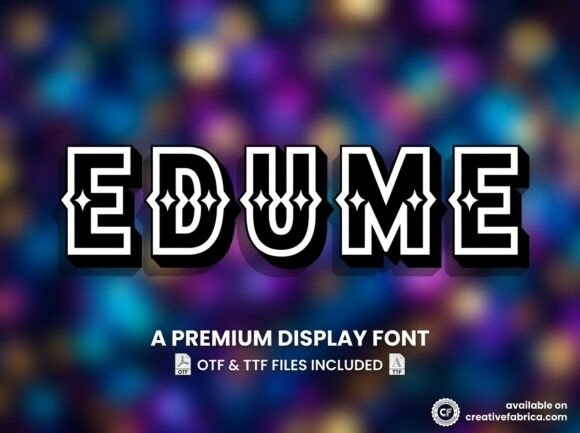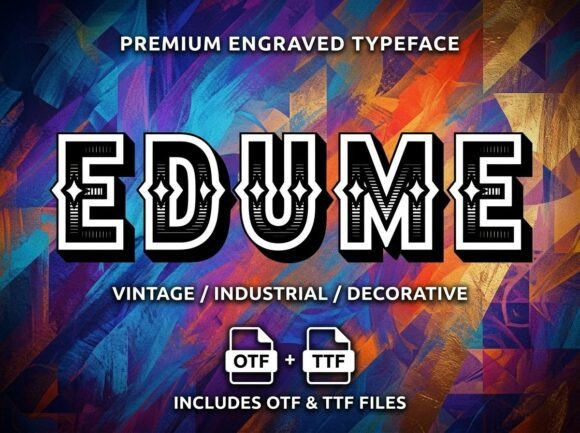
Introducing Edume Font: A Stunning Decorative Display Font
Are you tired of using the same old fonts for your creative projects? Look no further than Edume Font, a unique and artistic display font that’s sure to turn heads. Designed to be the center of attention, Edume Font features a strong visual personality and distinctive artistic elements that will help you break away from the ordinary.
What Makes Edume Font Special?
Edume Font is a versatile decorative display font that’s perfect for a variety of creative applications, including bold headlines, artistic logos, and creative packaging. With its professional and polished finish, this font is ideal for designers and crafters who want to add a touch of elegance and sophistication to their work.
⚠️ IMPORTANT NOTE BEFORE PURCHASE: Edume Font is an ALL-CAPS (Uppercase Only) display typeface, which means it does not include lowercase letters. This font is specifically designed for high-impact headlines, logos, and decorative initials where every letter is a work of art. If you’re looking for a font with both uppercase and lowercase letters, Edume Font may not be the best choice for you.
Use Edume Font for Your Creative Projects
Edume Font is perfect for a wide range of creative projects, including:
- Headlines and Titles: Add a touch of drama and sophistication to your headlines and titles with Edume Font’s unique and artistic letterforms.
- Logos and Branding: Create a lasting impression with Edume Font’s distinctive and memorable lettering, perfect for logos, business cards, and other branding materials.
- Packaging and Product Design: Add a touch of elegance and sophistication to your packaging and product design with Edume Font’s professional and polished finish.
Why Choose Edume Font?
With Edume Font, you’ll get:
- A unique and artistic display font that’s sure to turn heads.
- Professional and polished finish that’s perfect for a wide range of creative applications.